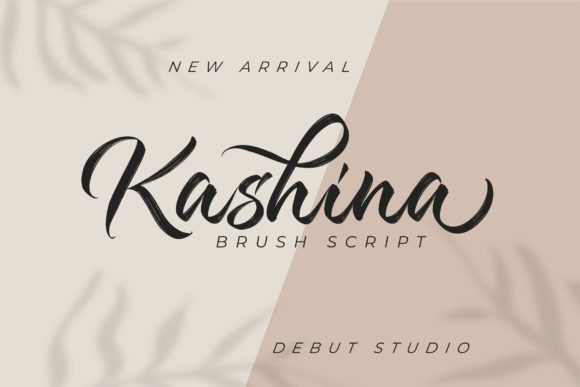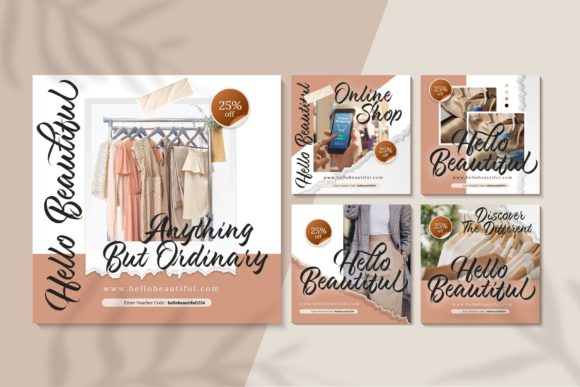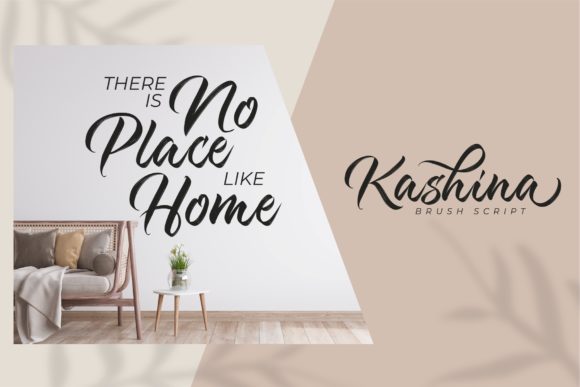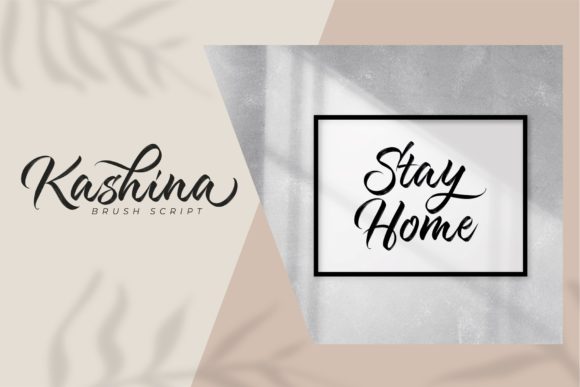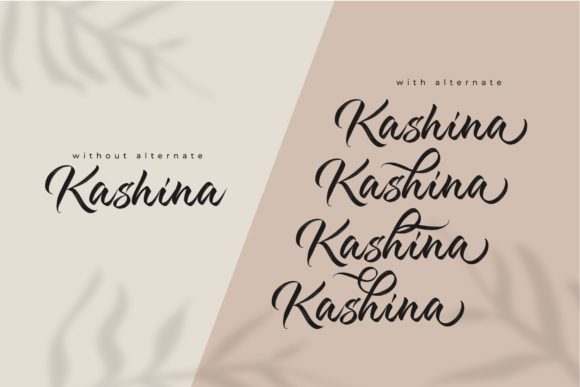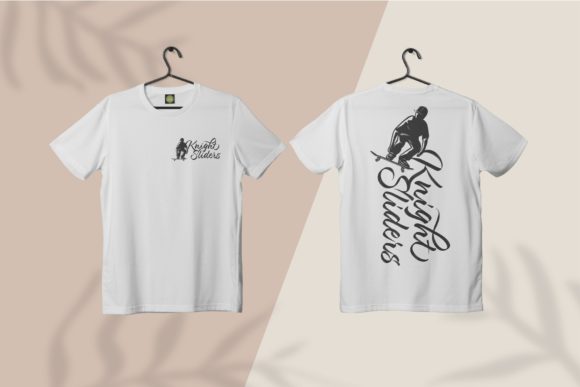
About Kashina Script Font
Kashina Script is a chic and captivating script font that will sweep you off your feet with its ravishing style. With its elegant and flowing letterforms, Kashina Script is the perfect choice for creating stunning wedding invitations, beautiful stationary art, eye-catching social media posts, and a wide range of other creative projects. Its sophisticated design adds a touch of luxury and allure to any design endeavor. Whether you’re planning a special event or simply want to add a touch of elegance to your designs, Kashina Script will help you create gorgeous and visually striking results. Fall in love with this font and let it elevate your creations to new levels of beauty and charm.